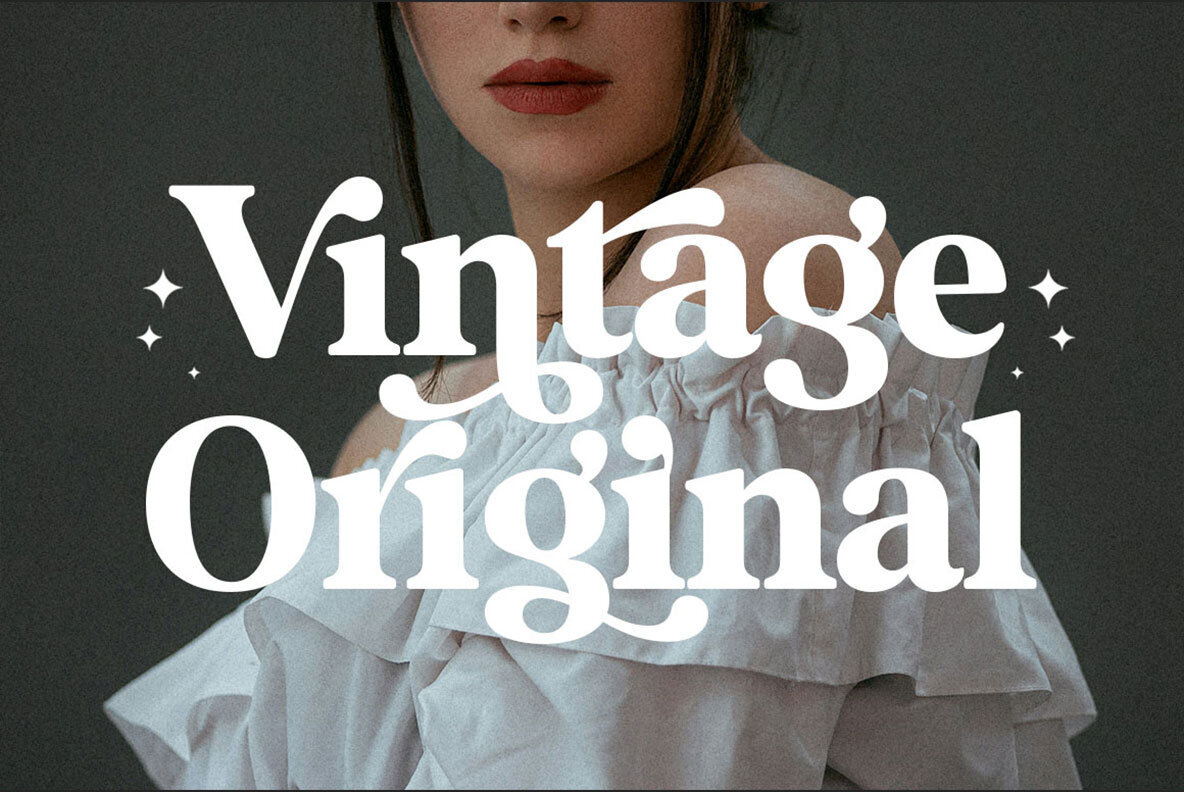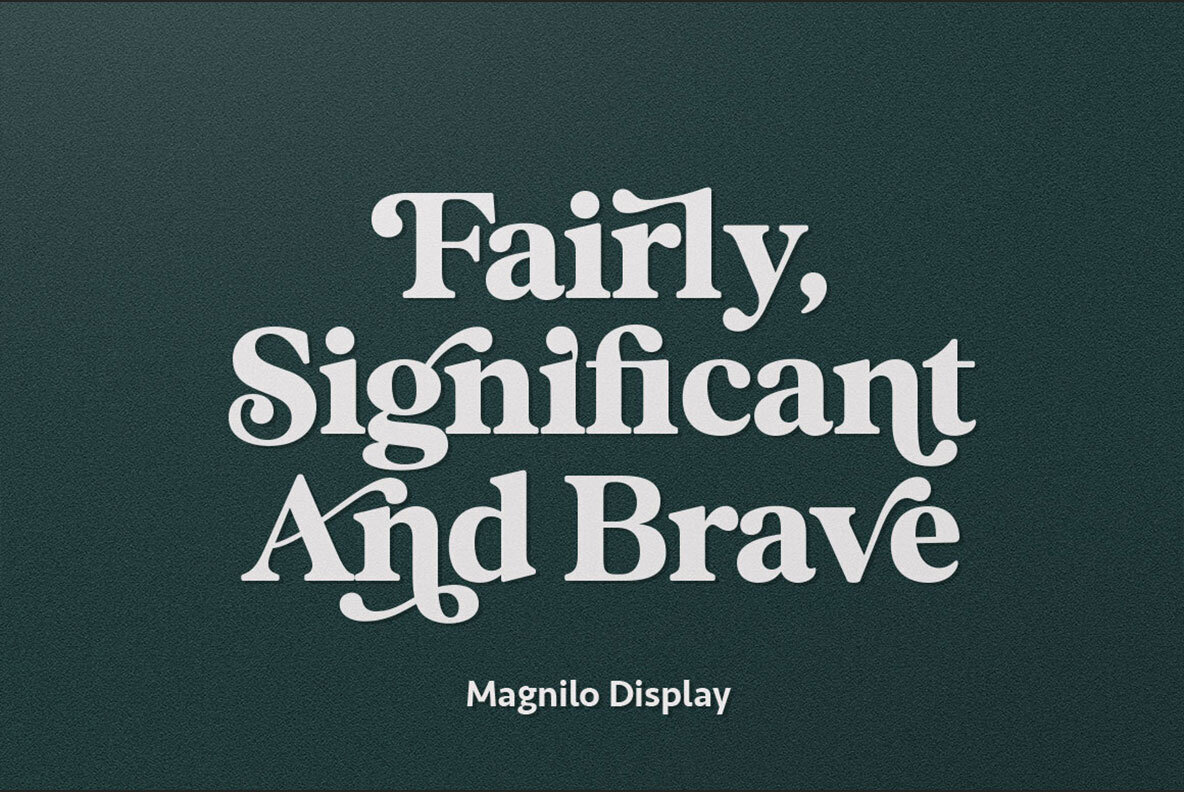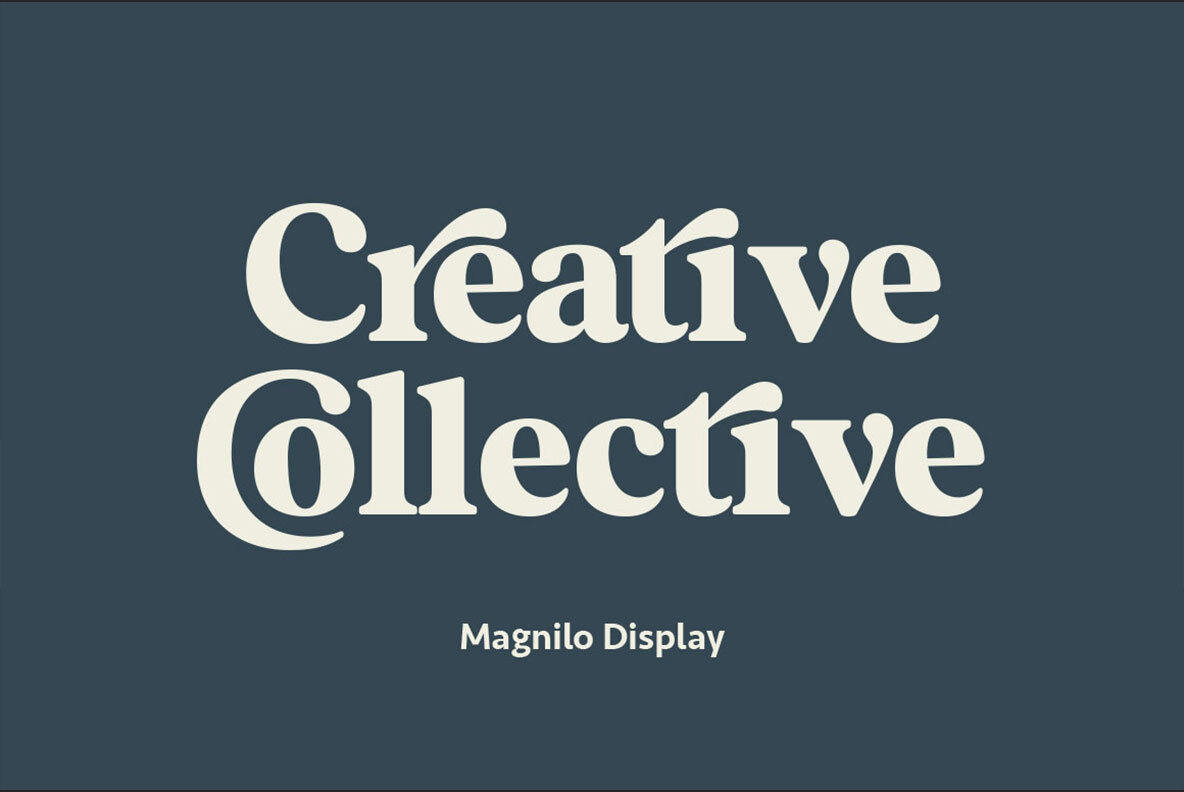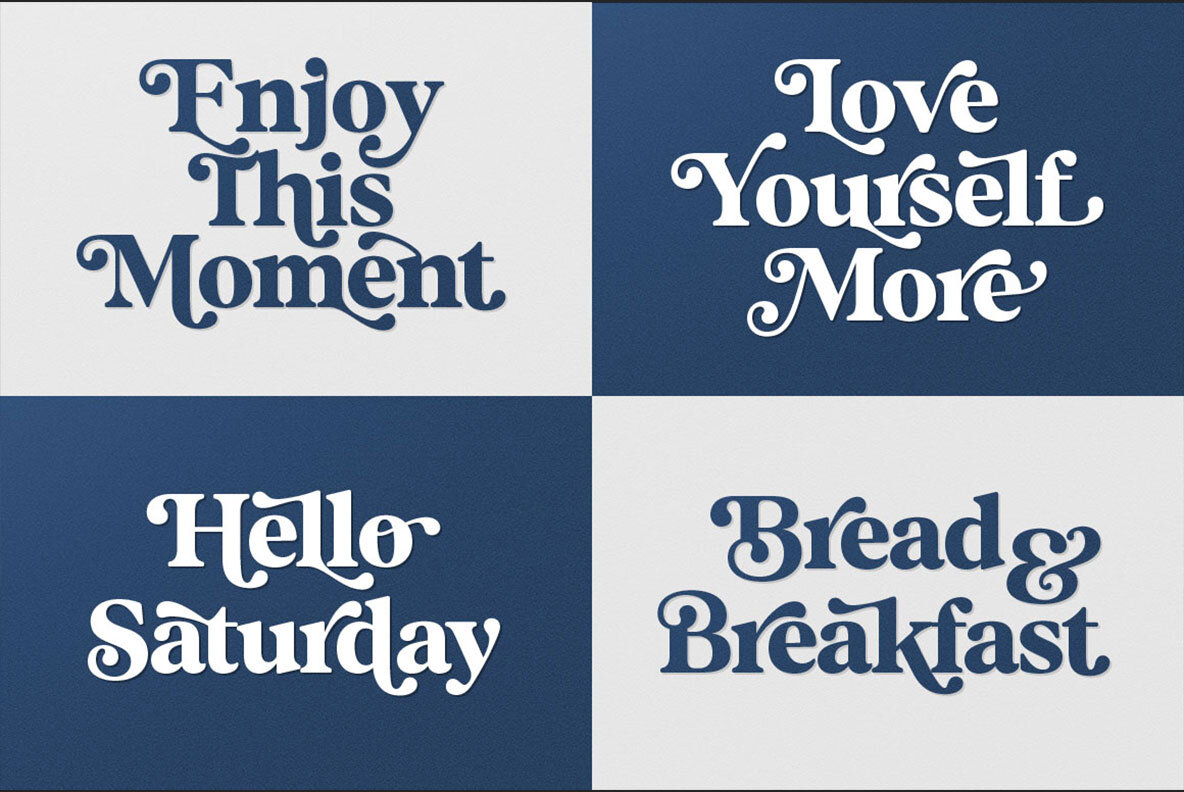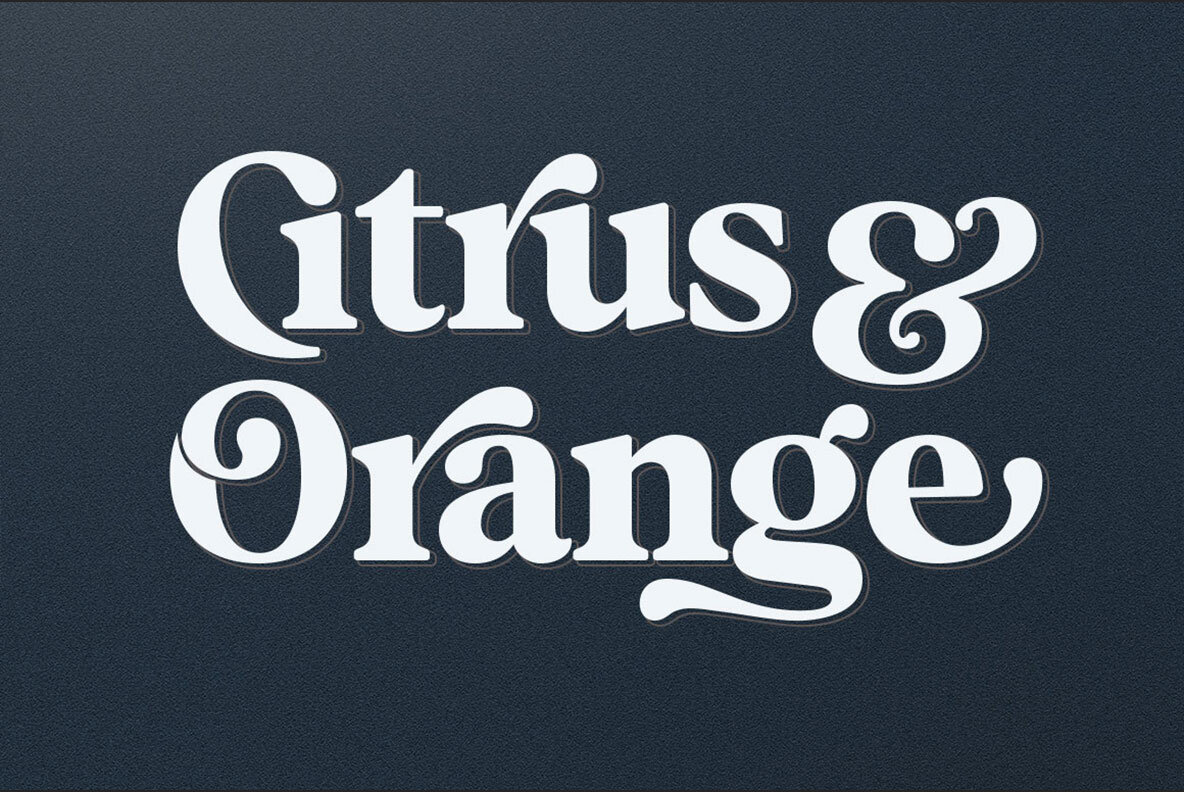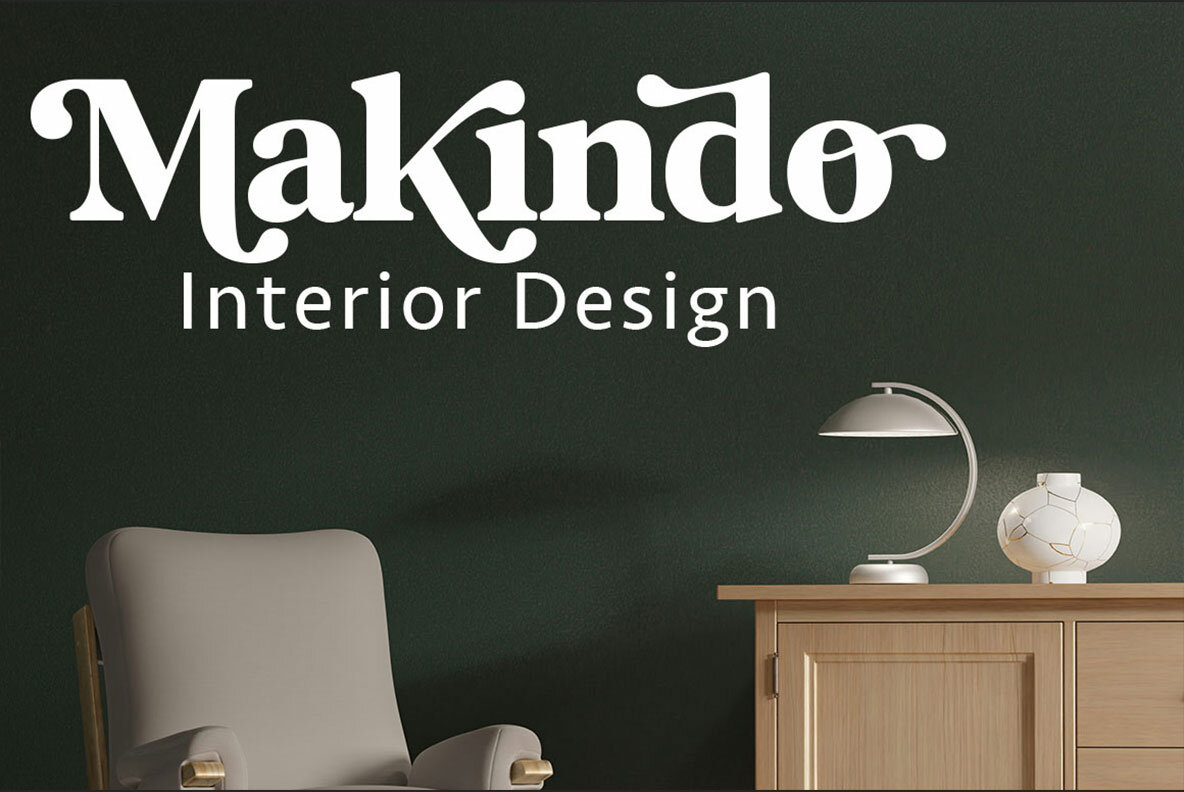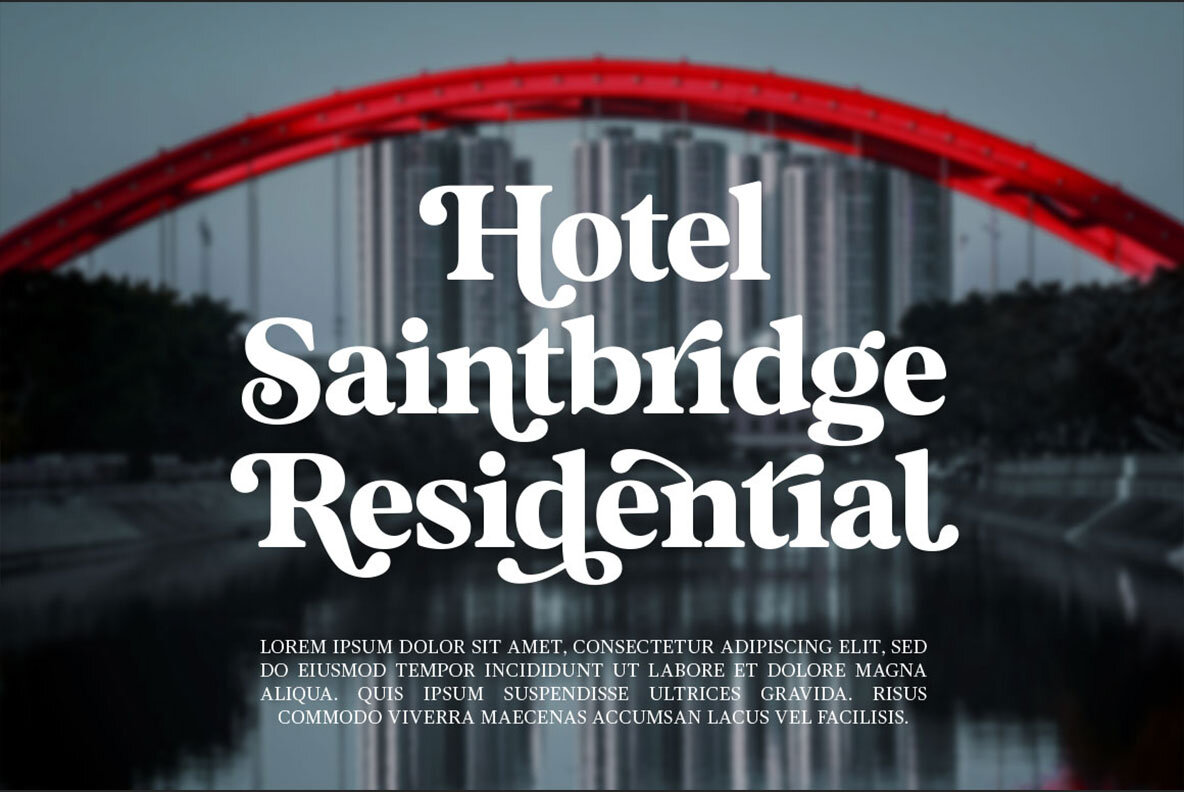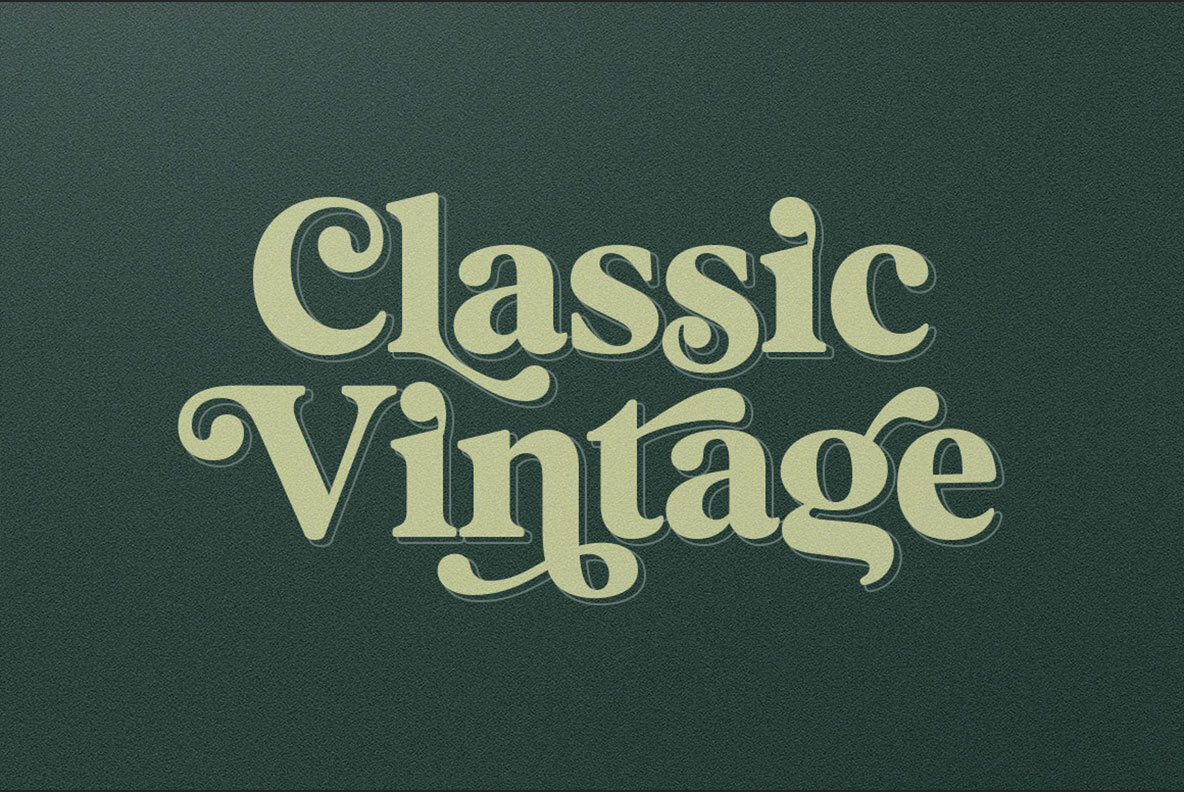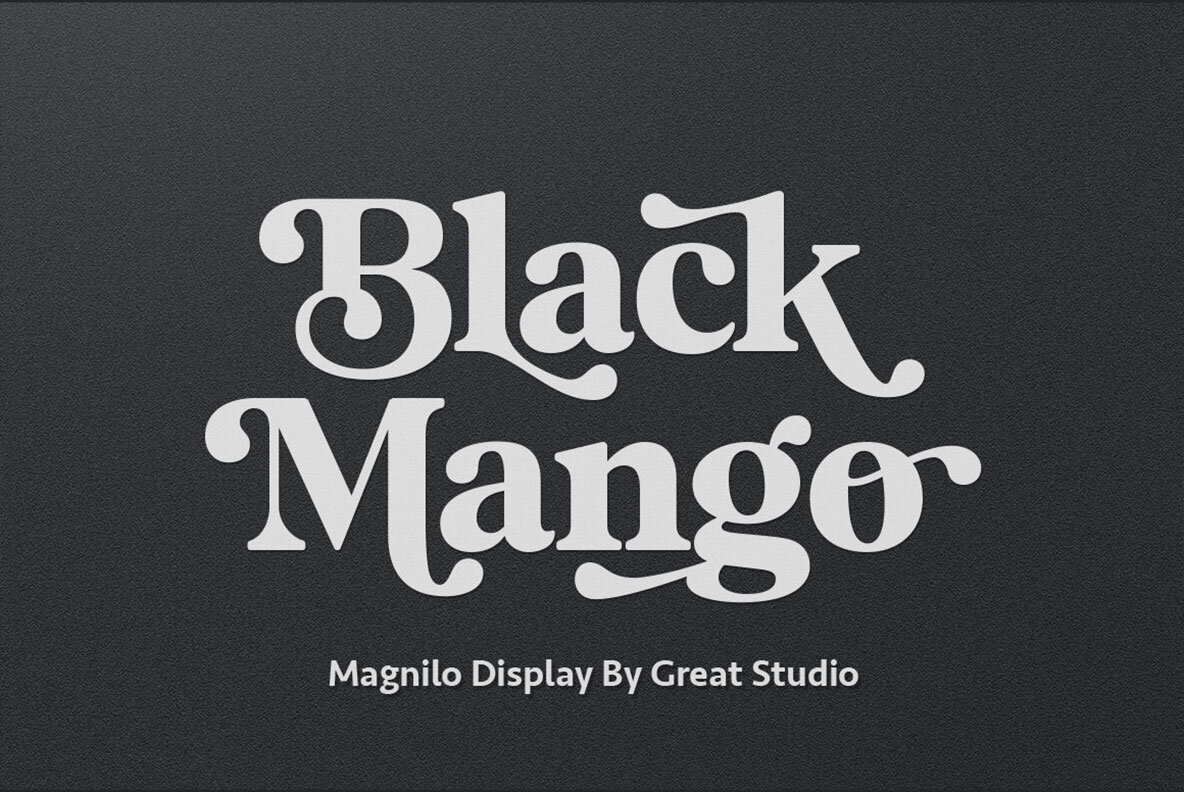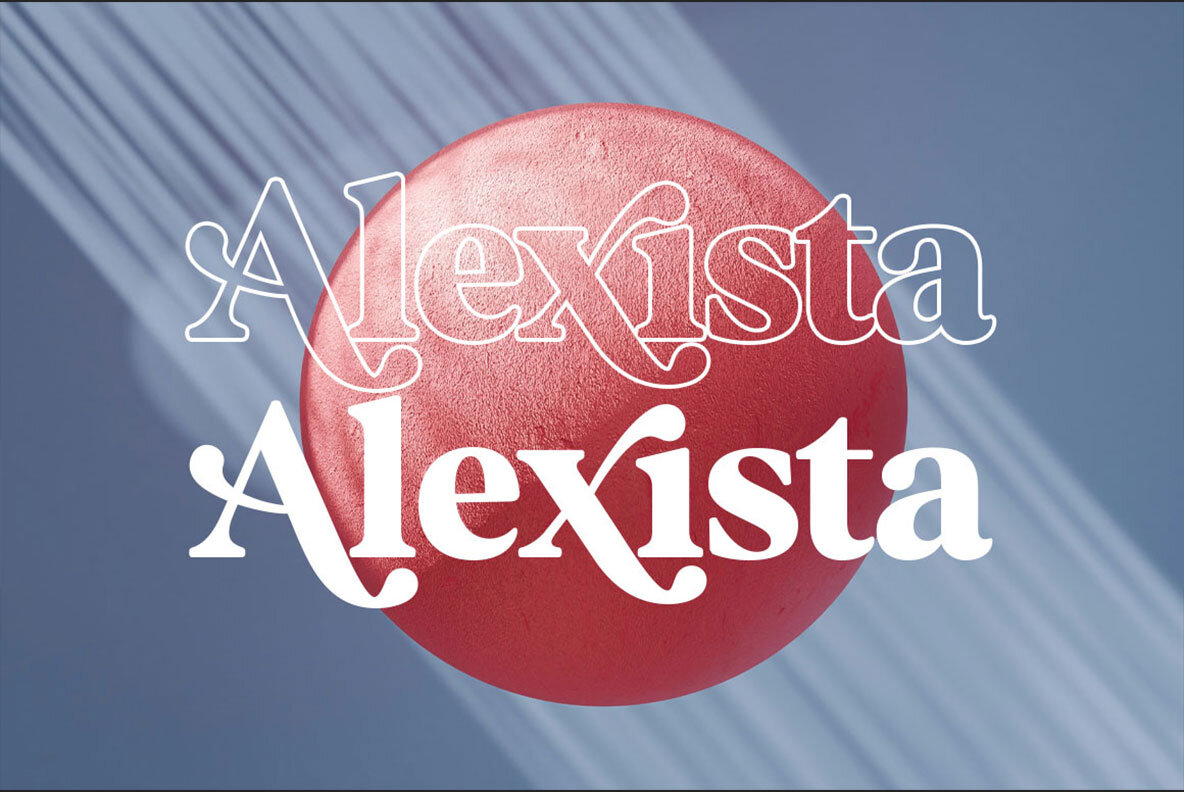
Magnilo Display Font
Magnilo Display is a sophisticated serif font that seamlessly blends modern and vintage aesthetics. It boasts a classy style and offers extensive OpenType features, allowing designers to explore a variety of alternate letters and ligatures. This flexibility provides ample opportunities to craft a unique and luxurious look, making it a perfect choice for enhancing your projects.
Ideal for a wide range of applications, this font excels in branding, logo design, and clothing branding. Its elegant design is also well-suited for magazine headings, packaging, advertising, and more. Whether creating postcards or T-shirts, Magnilo Display adds a touch of elegance and sophistication, making it a versatile option for any designer's toolkit.